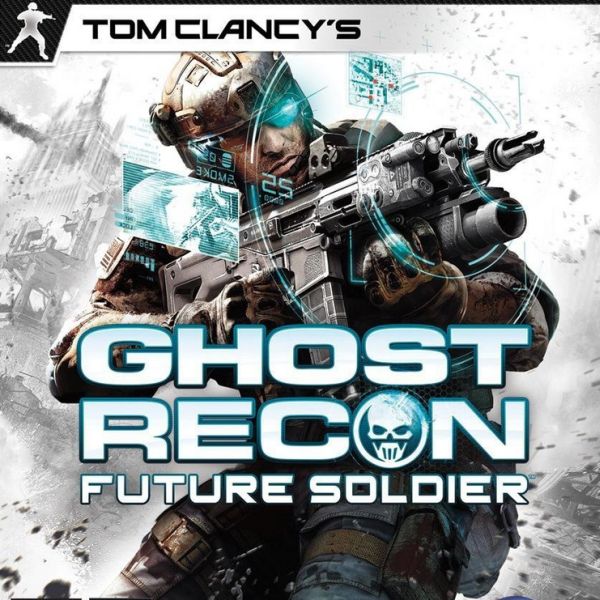
Ghost Recon Font
ActionTom Clancy’s Ghost Recon is a tactical shooter video game series developed by Ubisoft. Players assume the role of elite soldiers who must complete various missions using advanced technology and teamwork.
The game's logo showcases its title in an all-caps square sans serif font, likely the Eurostile Bold Extended. The letter "O" in "RECON" is frequently substituted with a skull or target symbol.